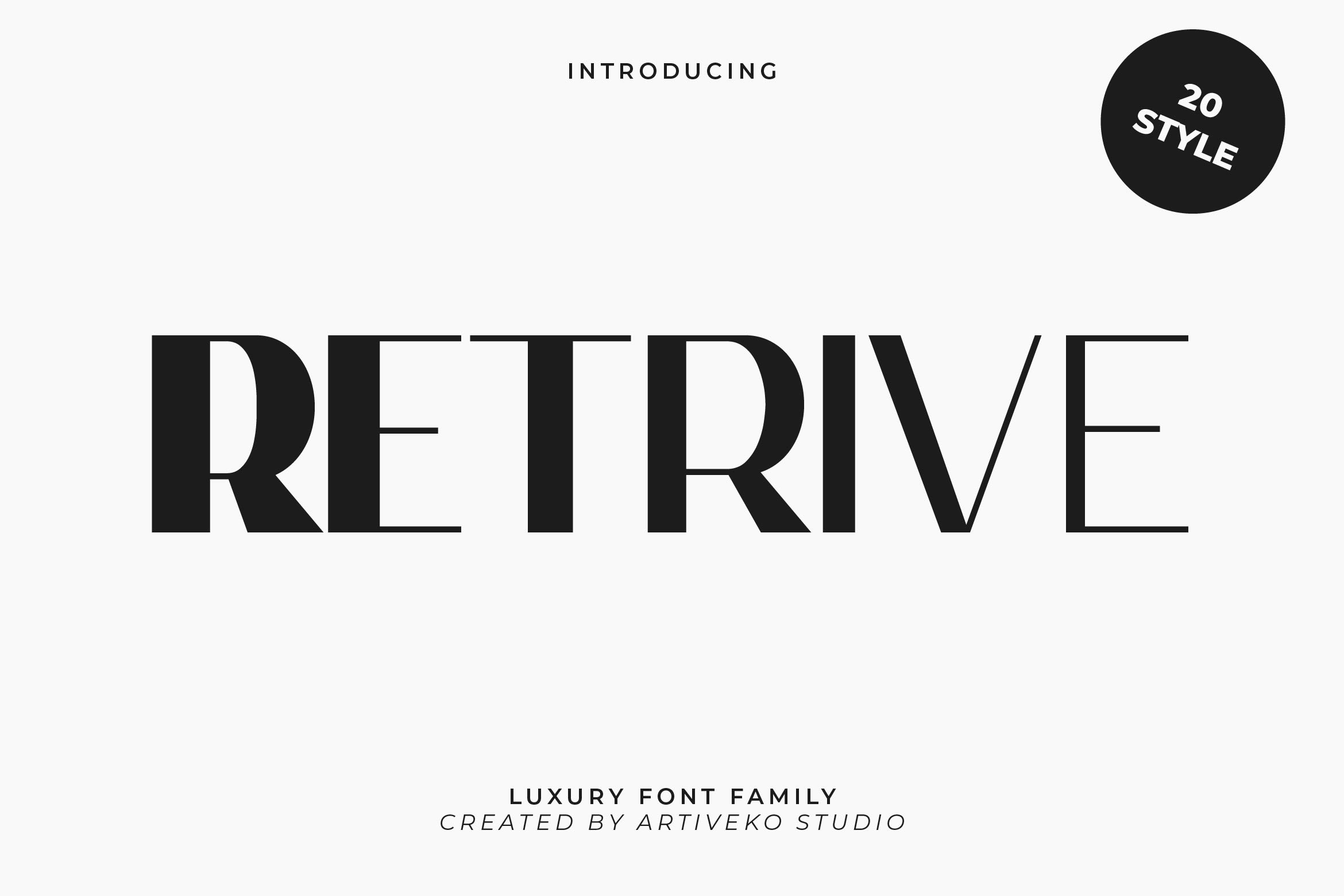
Retrive Sans Family Font
Retrive is a clean and professional sans serif font family designed for maximum versatility and modern appeal. With its balanced proportions, geometric structure, and smooth curves, Retrive works beautifully across a wide range of design applications — from bold headlines to elegant body text.
Perfect for branding, editorial layouts, websites, presentations, packaging, and corporate materials, Retrive offers clarity, consistency, and style. Its multiple weights allow you to create dynamic typographic hierarchies while maintaining a cohesive visual identity throughout your project.
The font family includes multiple weights (from Thin to Bold), uppercase and lowercase letters, numerals, punctuation, multilingual support, and stylistic alternates — giving you full creative control and flexibility.
Elevate your designs with Retrive — a modern sans serif family that combines simplicity, legibility, and timeless sophistication.